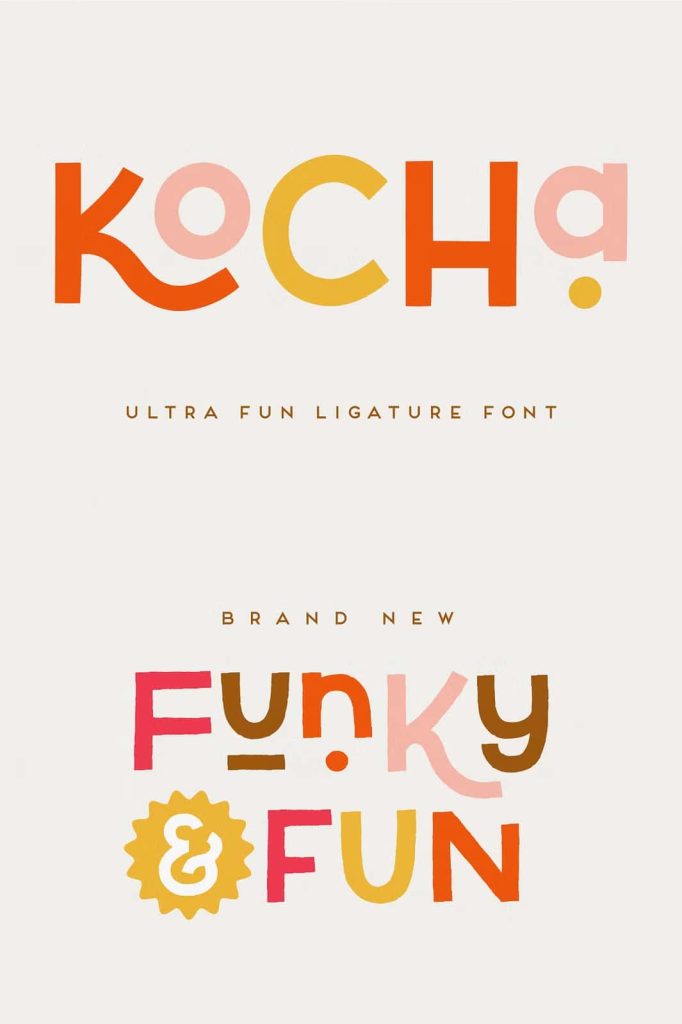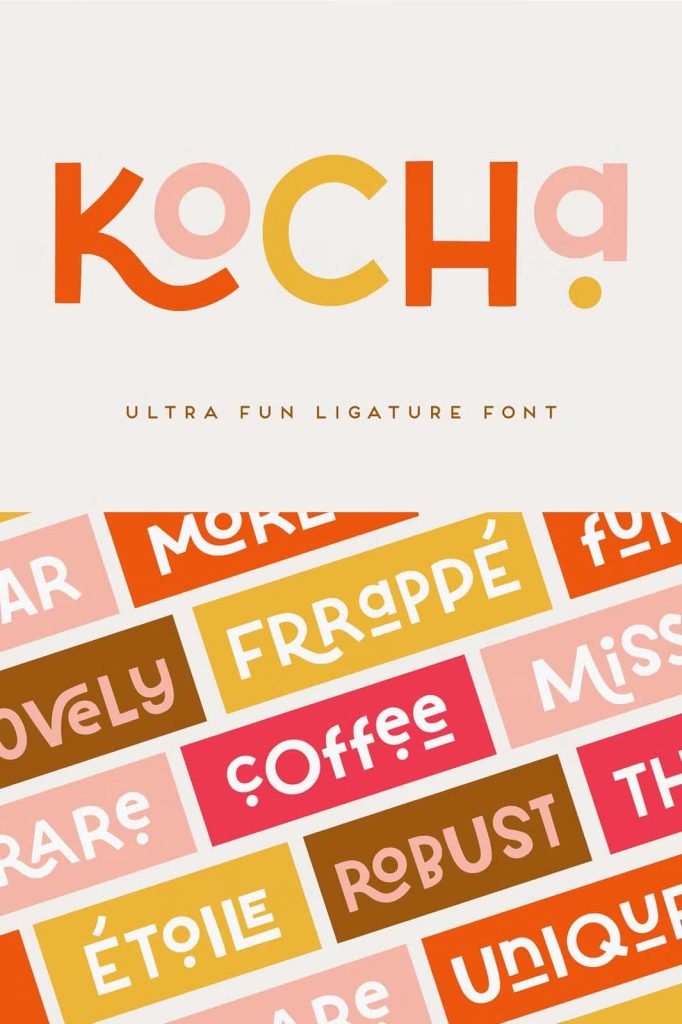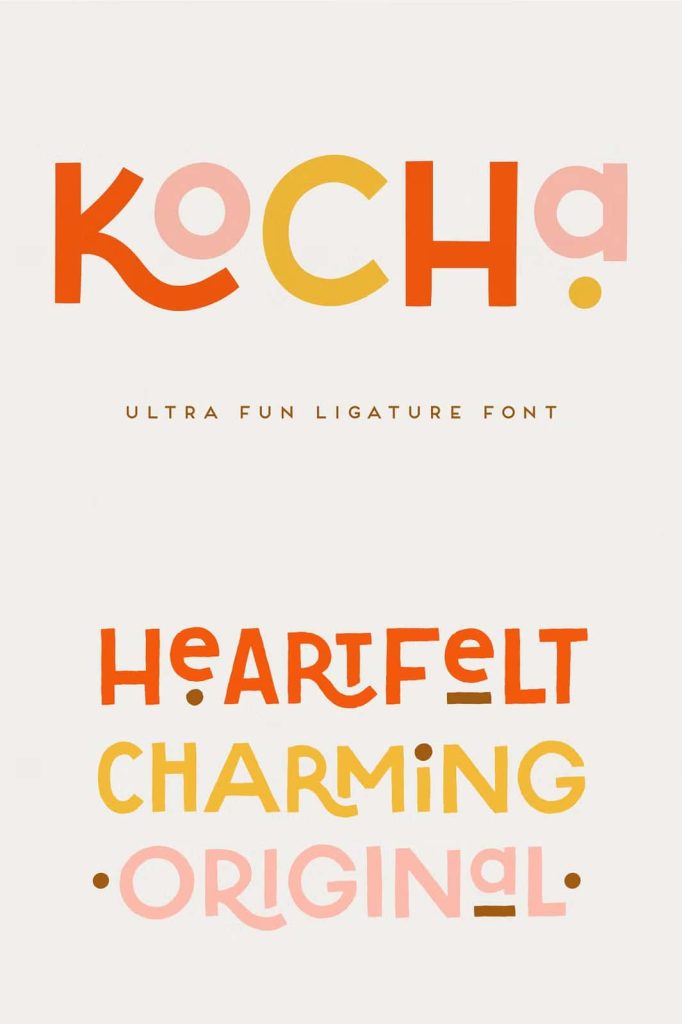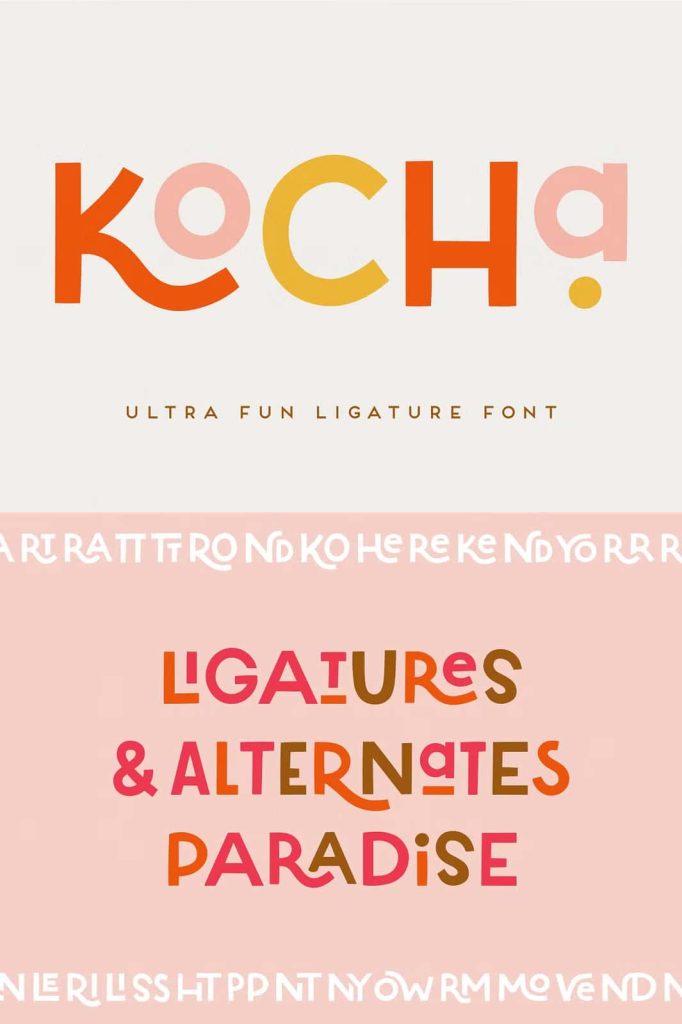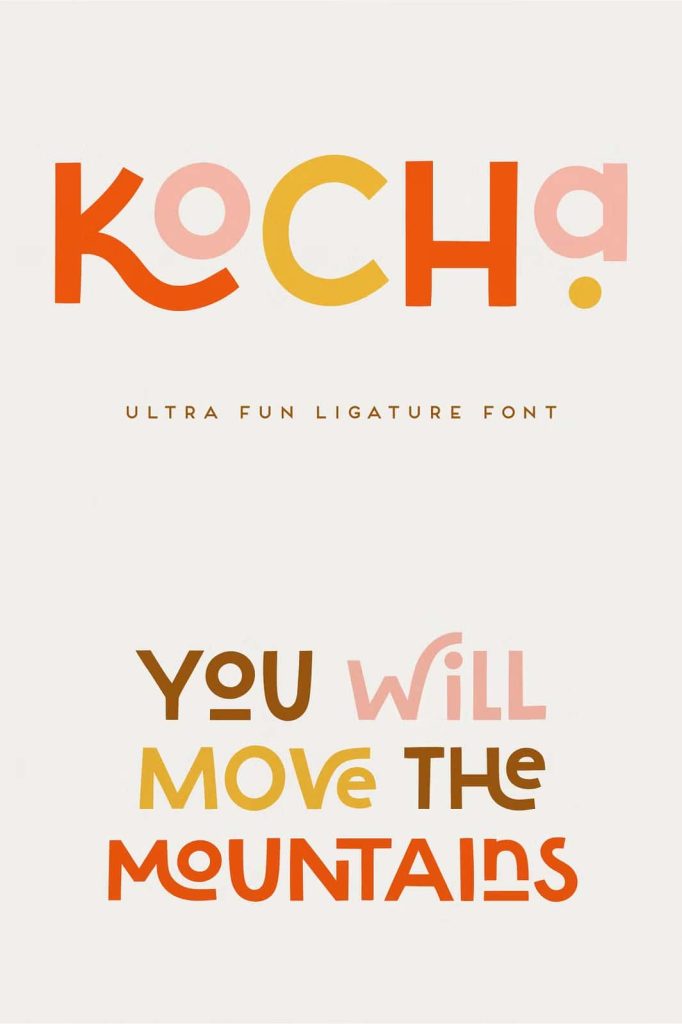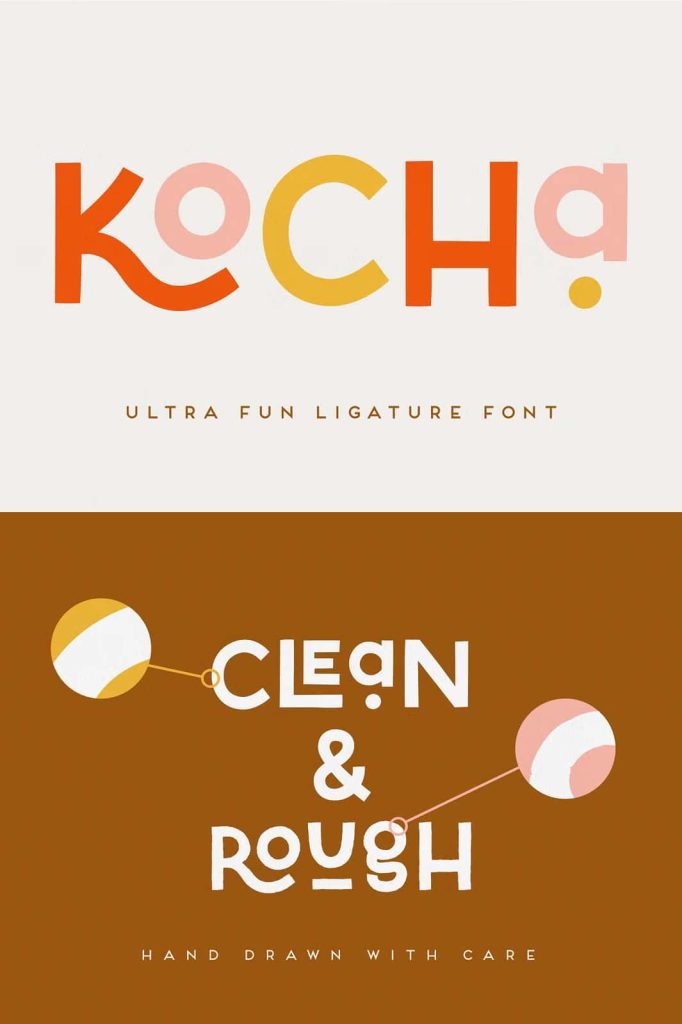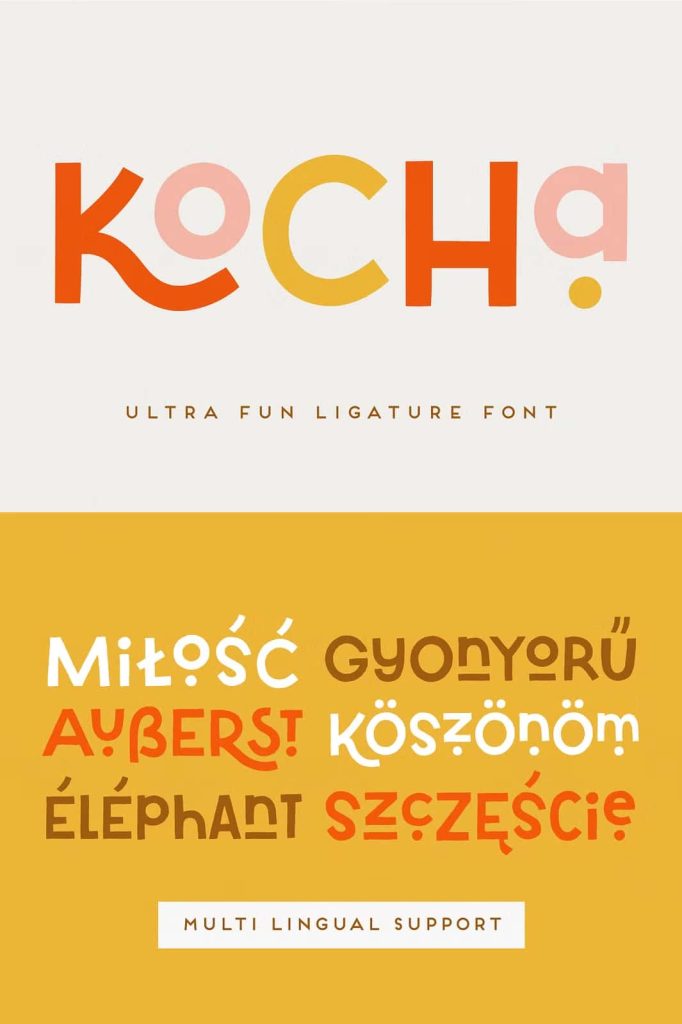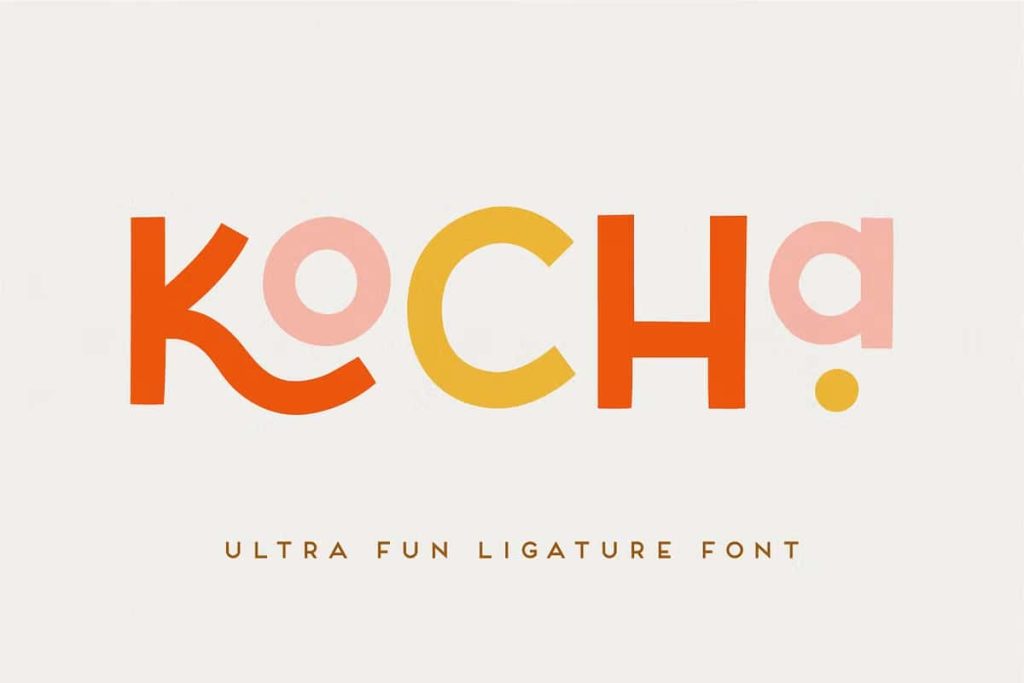
Kocha | Playful Ligature FontleastedJuly 4, 2025Fonts Say hello to Kocha – hand-drawn display font with plenty of ligatures and stylistic alternatives. Download